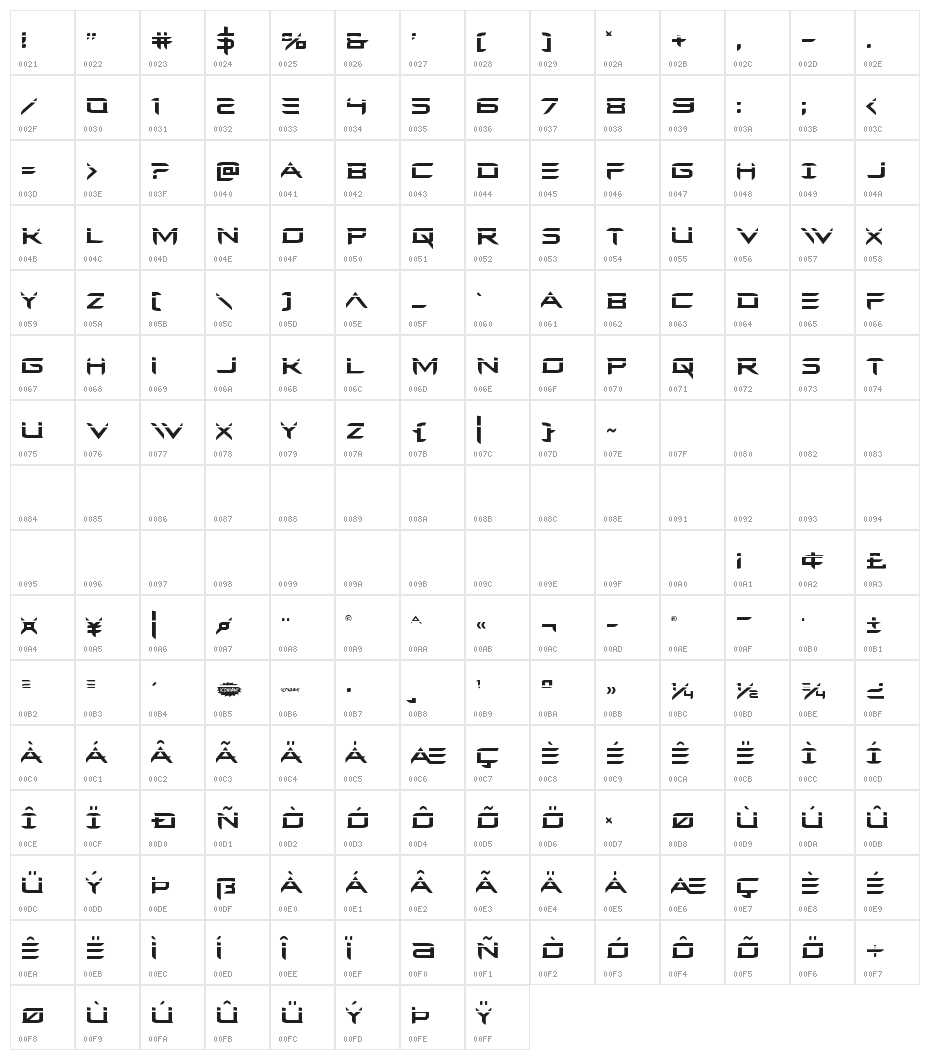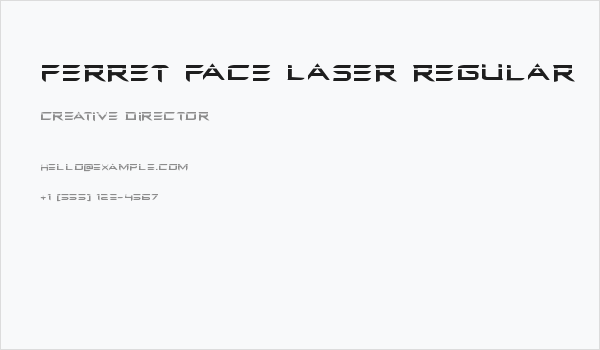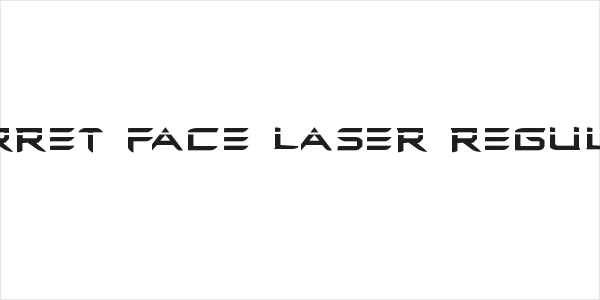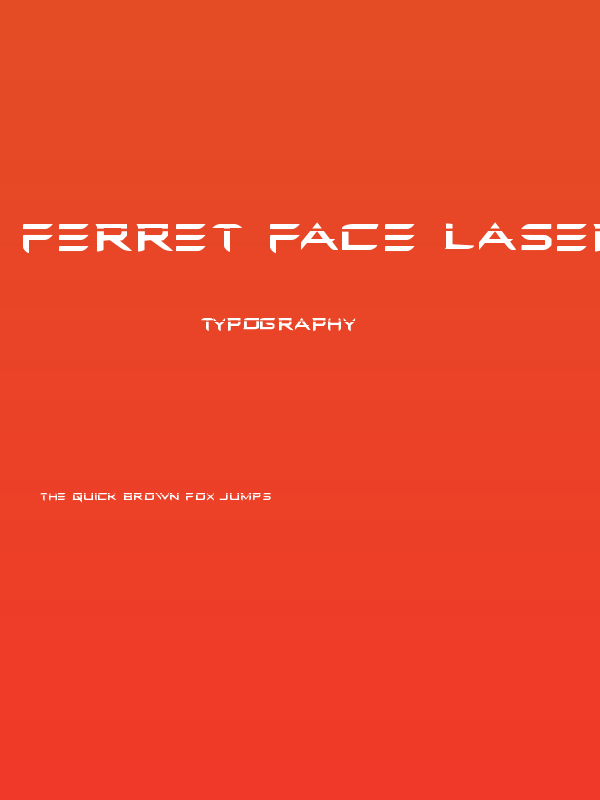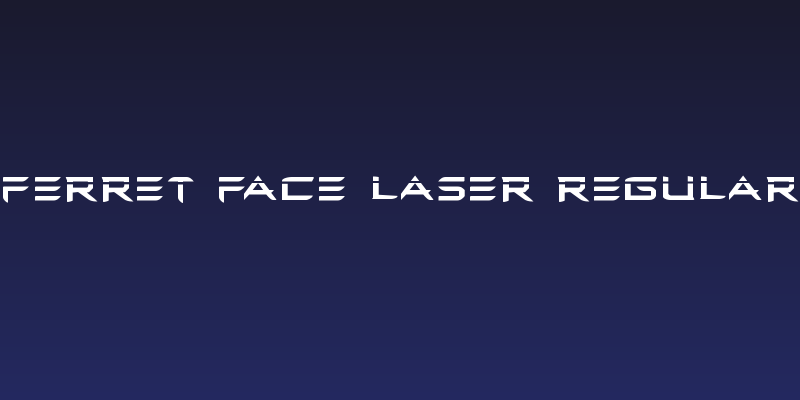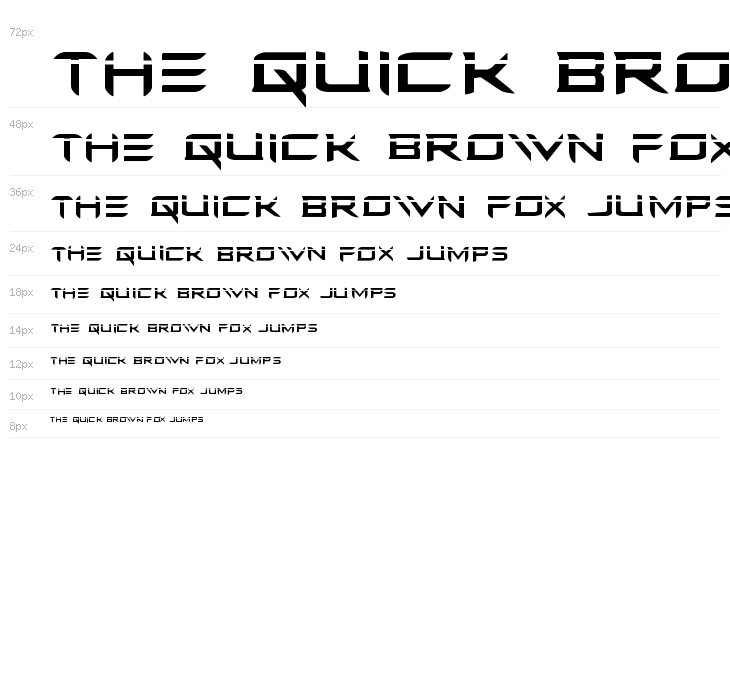
Ferret Face Laser Regular Font
Ferret Face Laser Regular Description
This font features a futuristic and angular design, characterized by sharp edges and geometric forms. The letters are constructed with a series of straight lines and pointed angles, giving it a dynamic and modern appearance. The uppercase and lowercase letters maintain a consistent style, with a uniform height and width that enhances readability. Numbers and special characters follow the same design principles, ensuring a cohesive look across all elements. The font's unique style makes it suitable for projects that require a bold and innovative aesthetic.
| Proposed Projects | Ideal for sci-fi themed designs, technology branding, video game titles, and modern posters. |